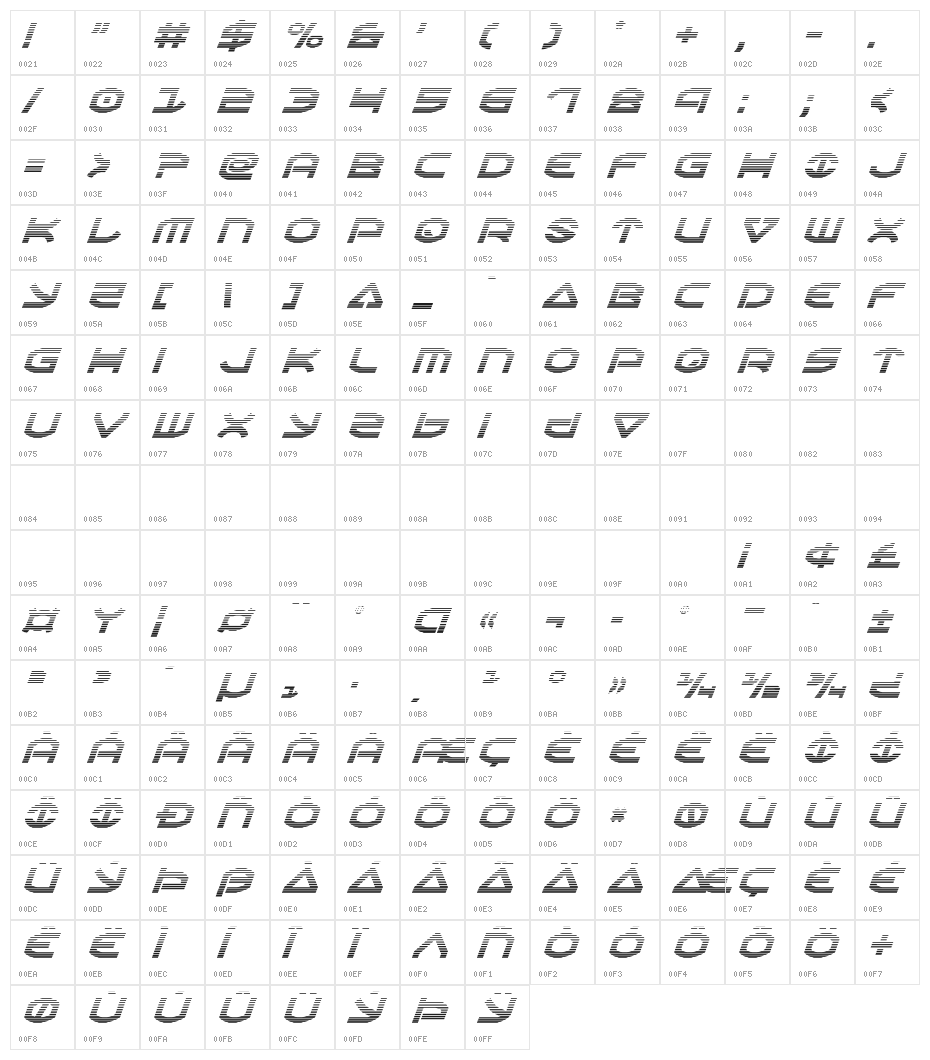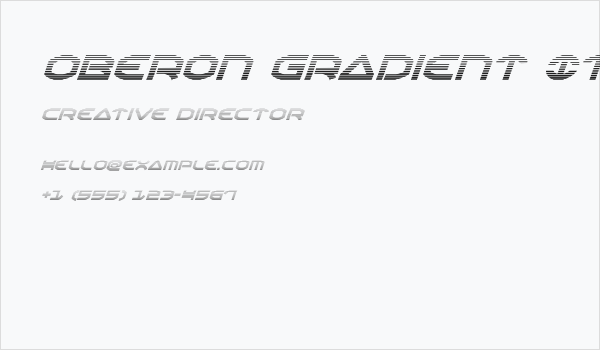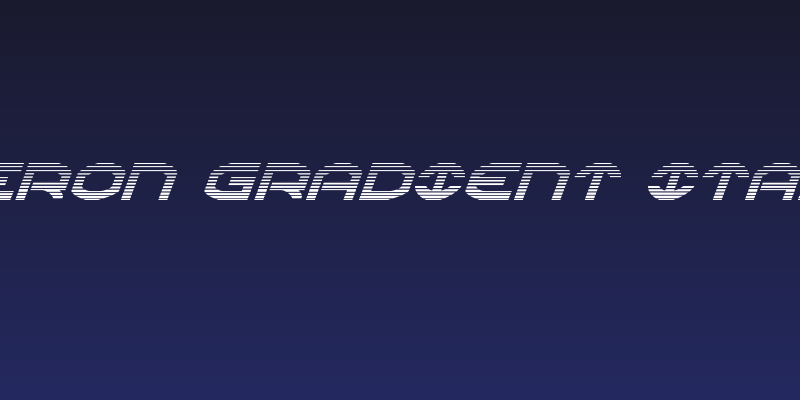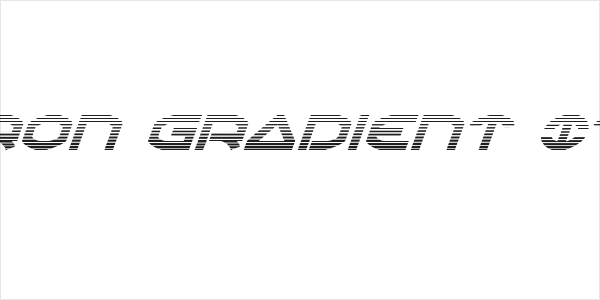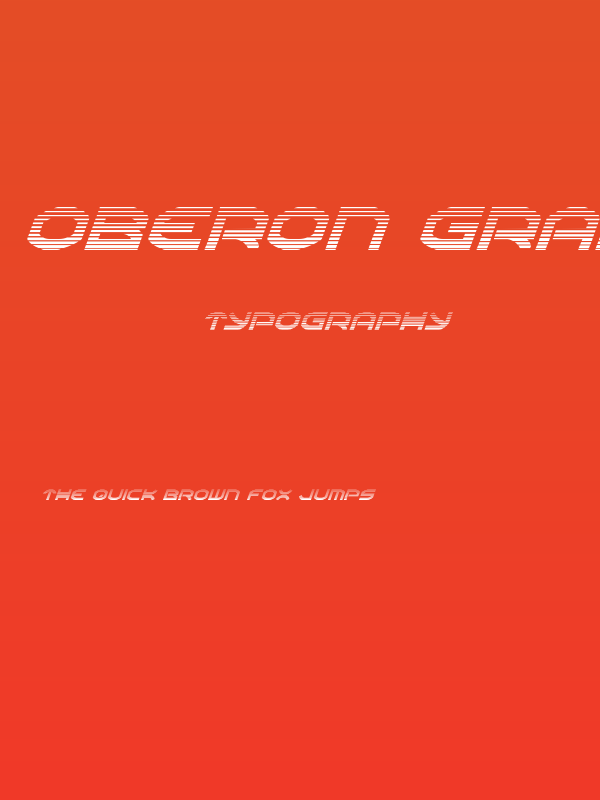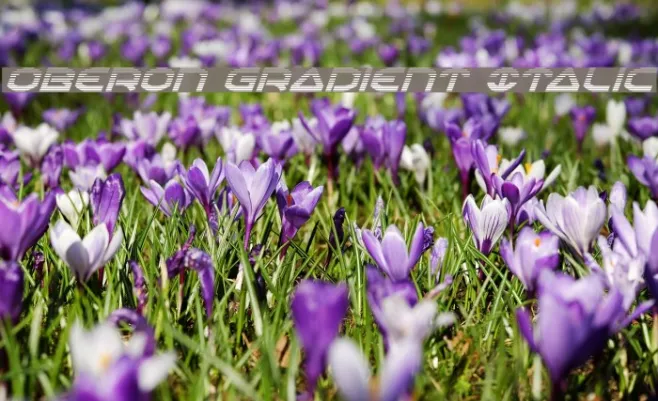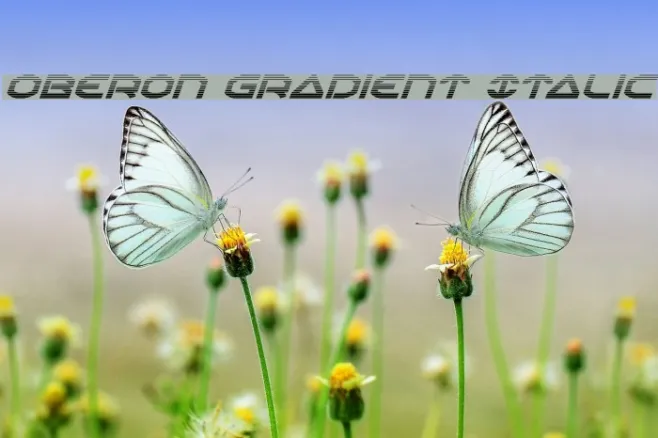
Oberon Gradient Italic Font
Oberon Gradient Italic Description
This font features a dynamic and futuristic design with a gradient effect that gives it a sense of motion and depth. The italicized style adds a sleek and modern touch, making it stand out with its unique horizontal lines that create a layered appearance. The characters are bold and slightly condensed, enhancing readability while maintaining a distinct aesthetic. The font's geometric shapes and sharp angles contribute to its contemporary look, making it suitable for projects that require a bold and innovative visual impact.
| Proposed Projects | Ideal for tech branding, sci-fi posters, video game titles, and modern advertising campaigns. |